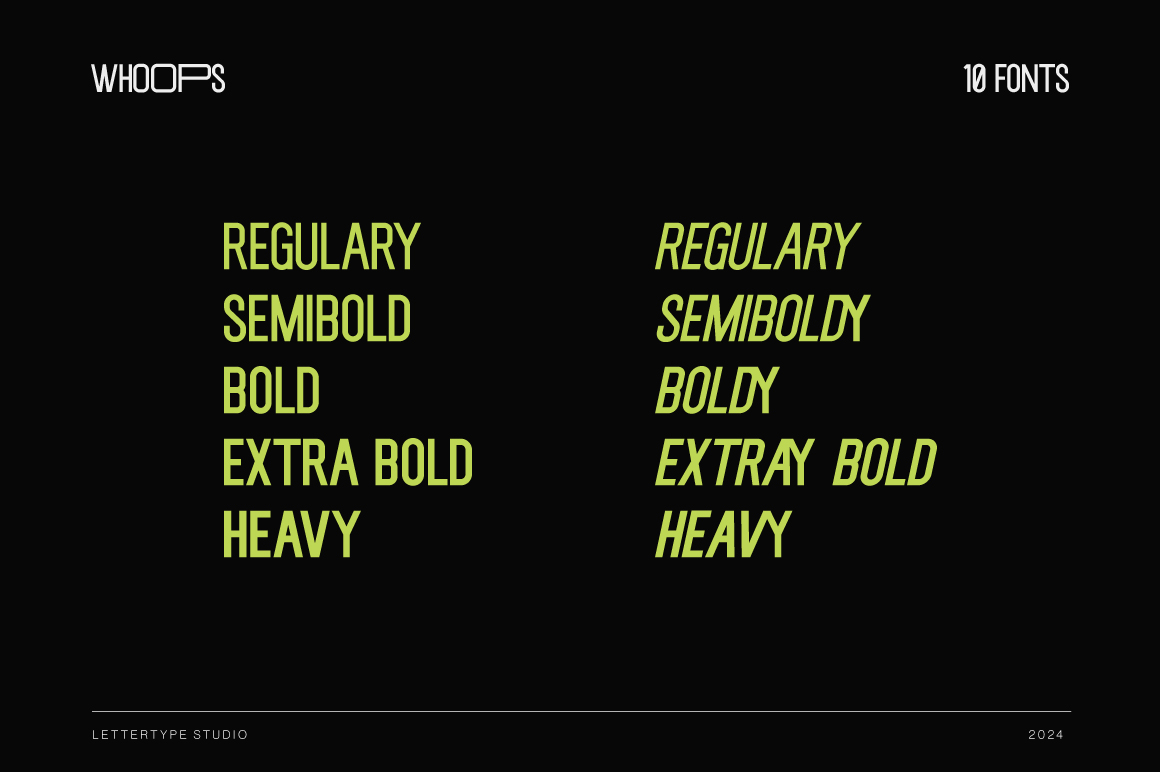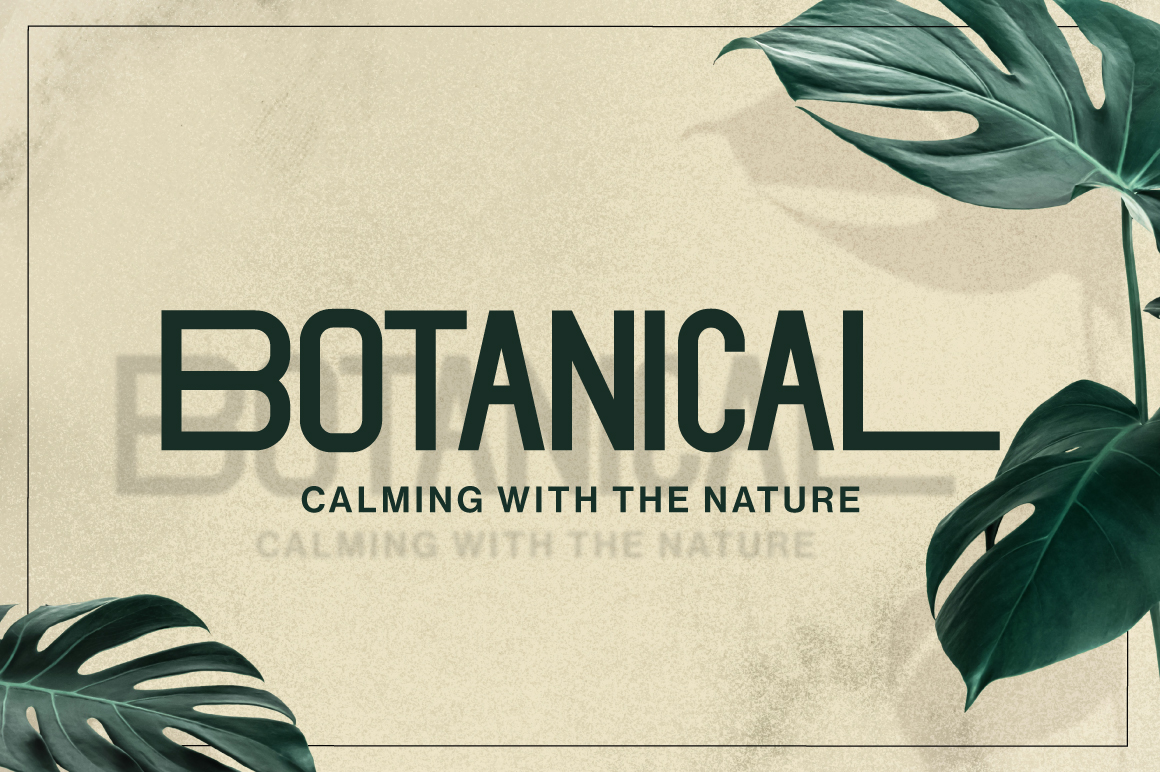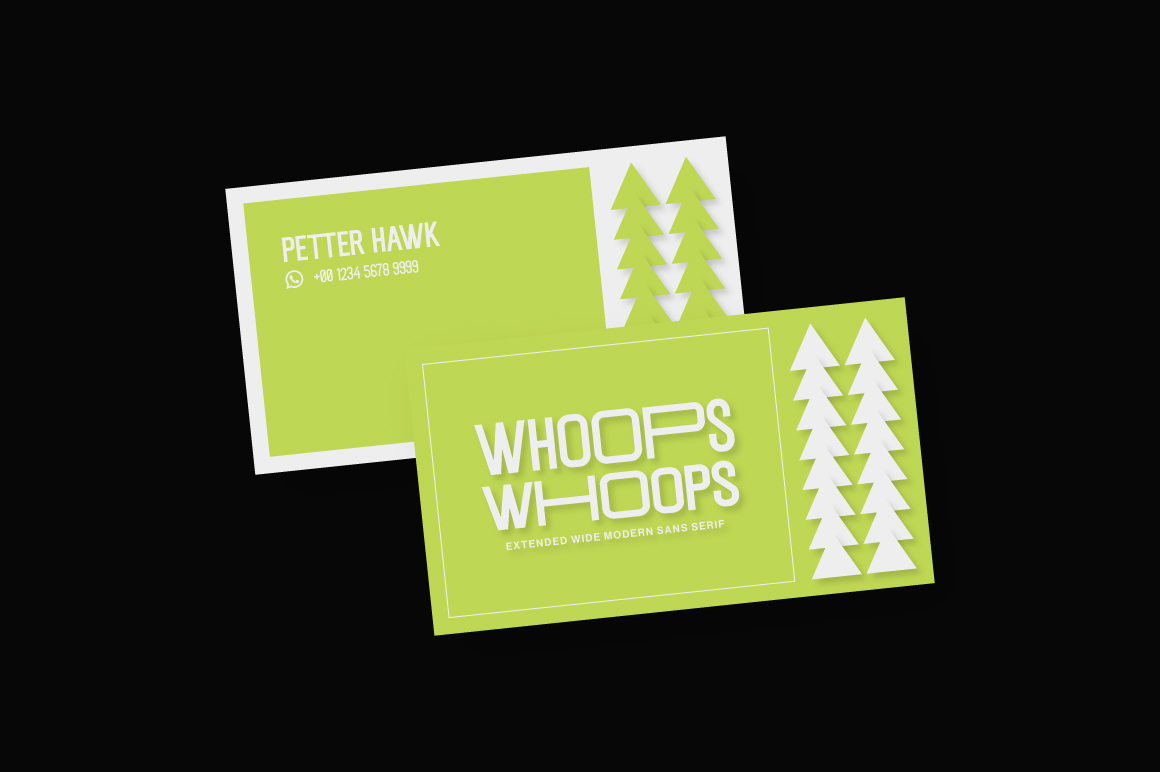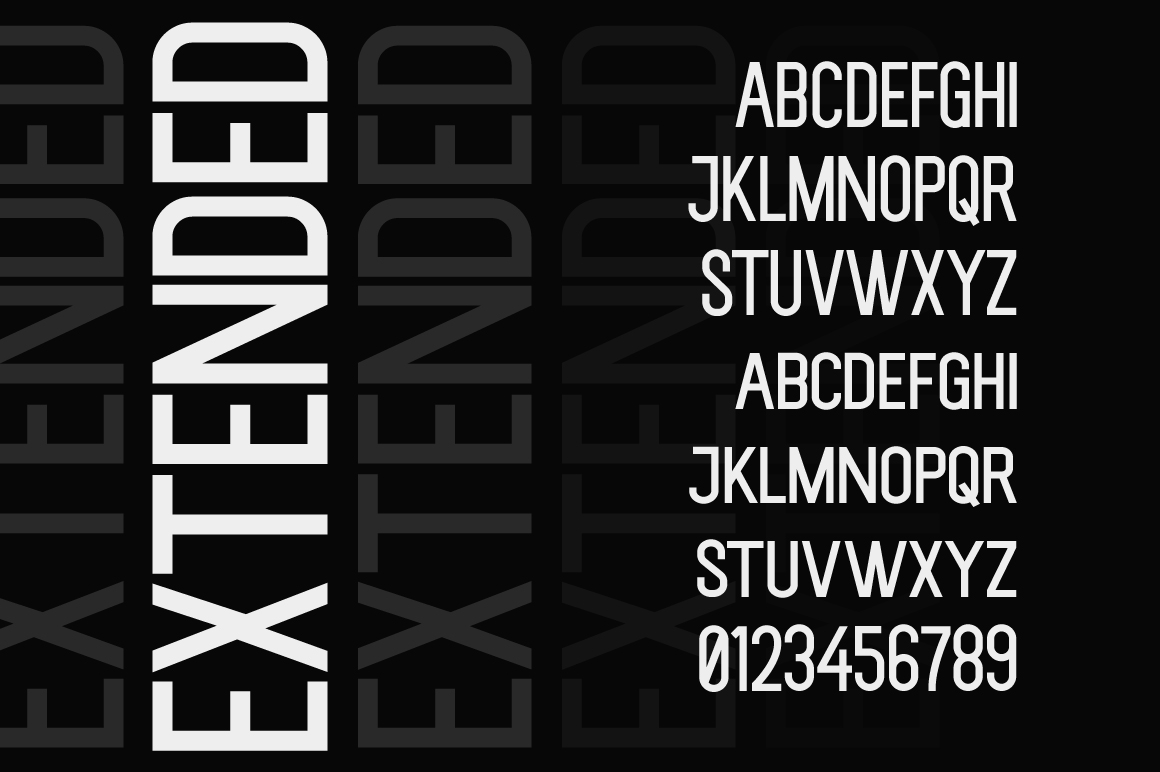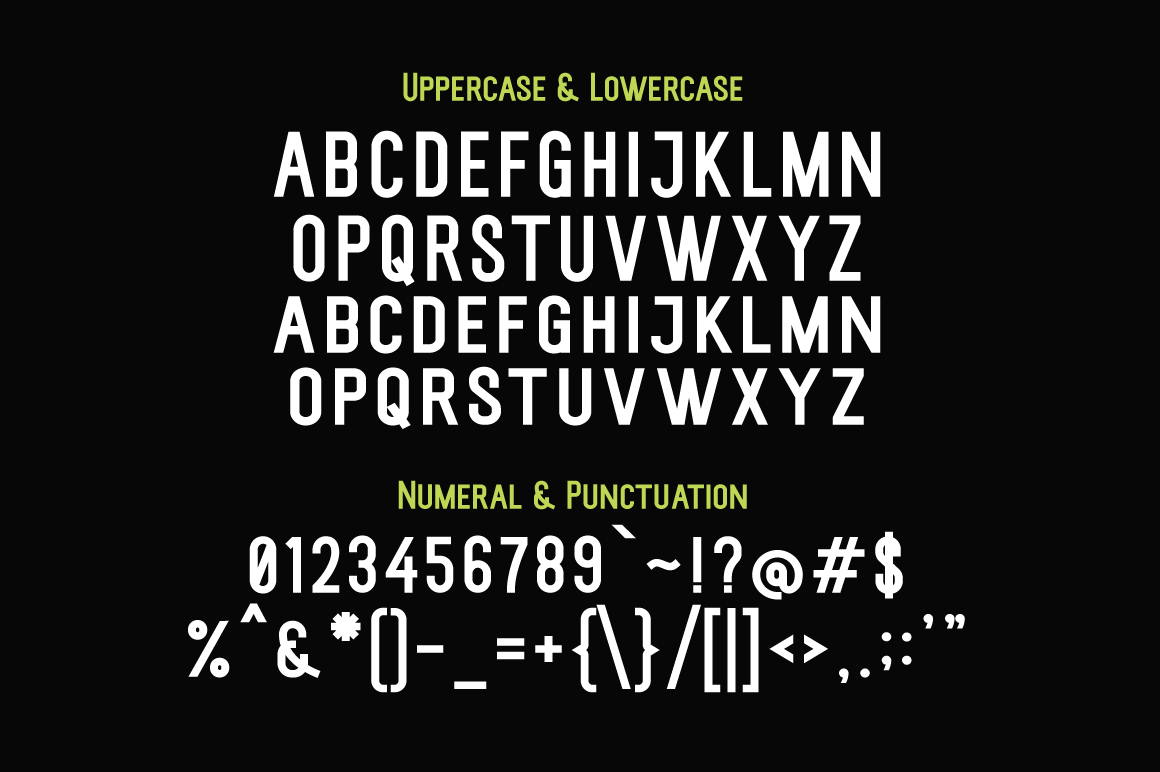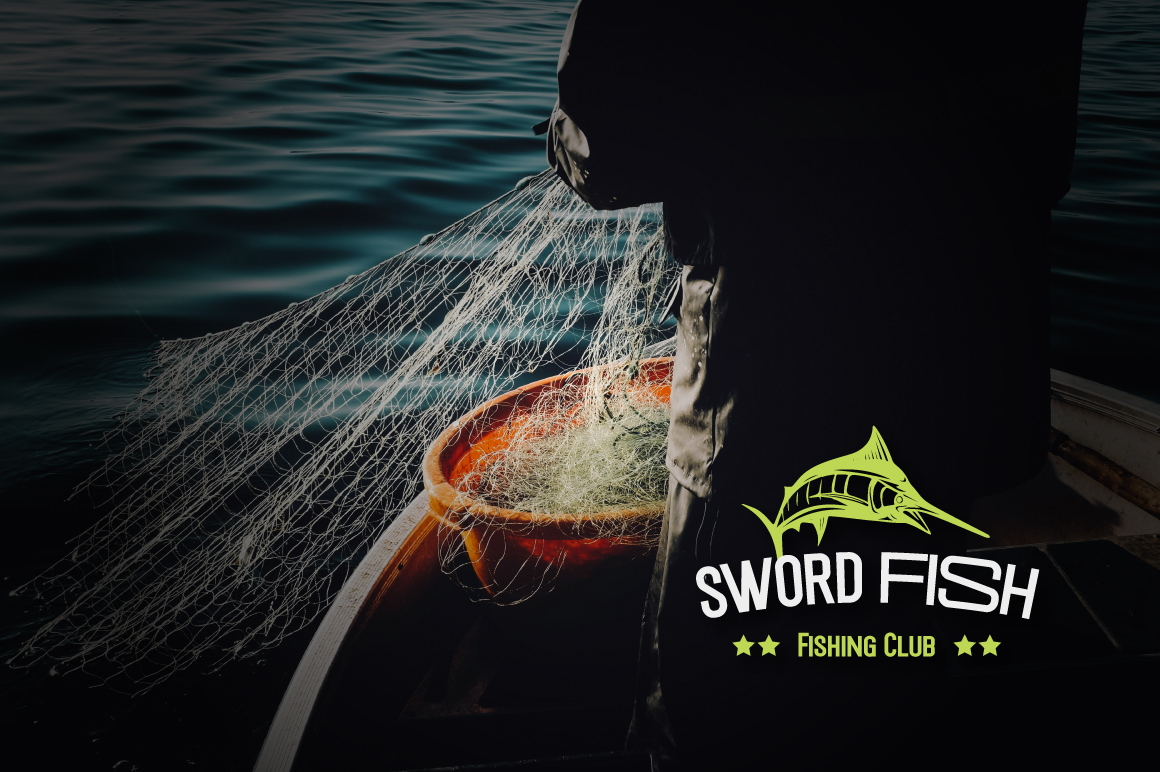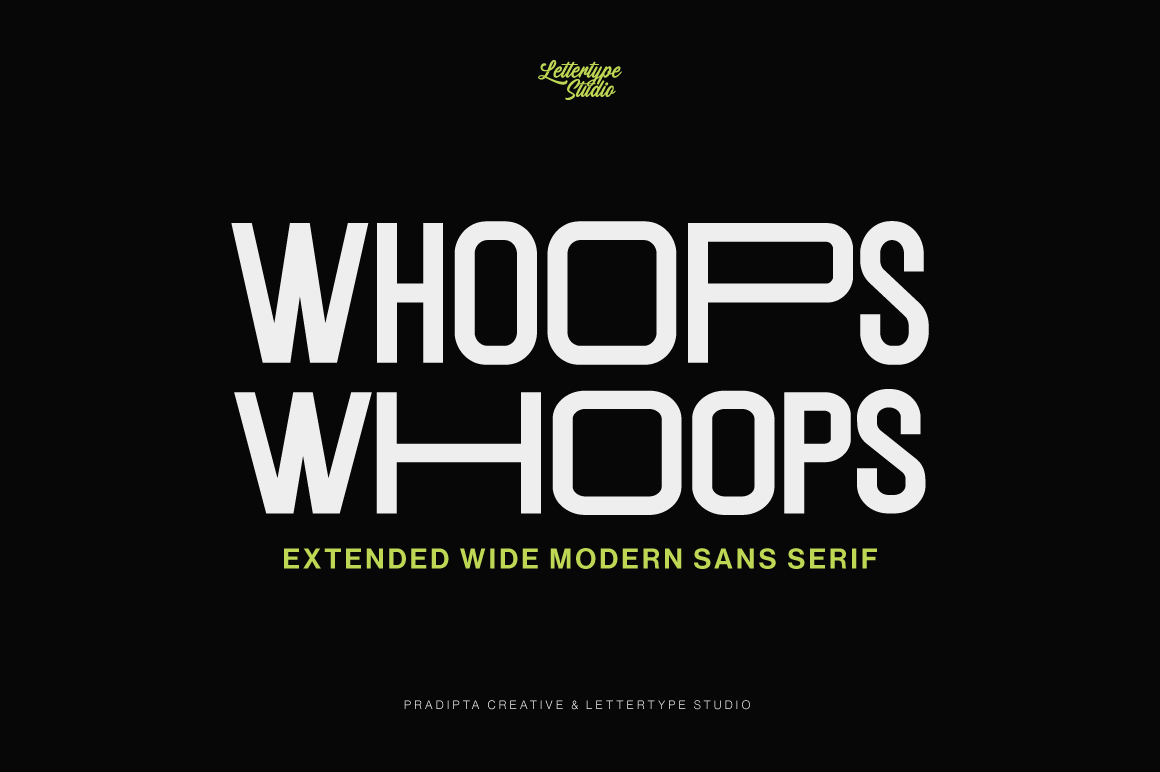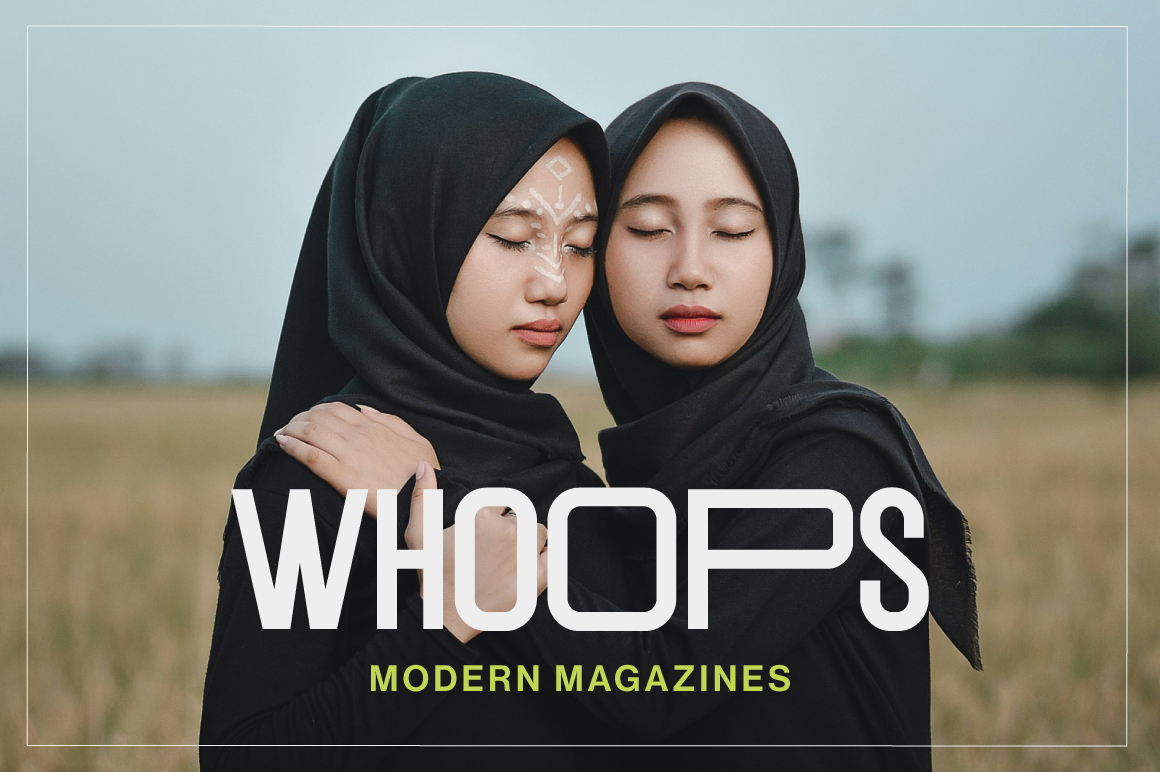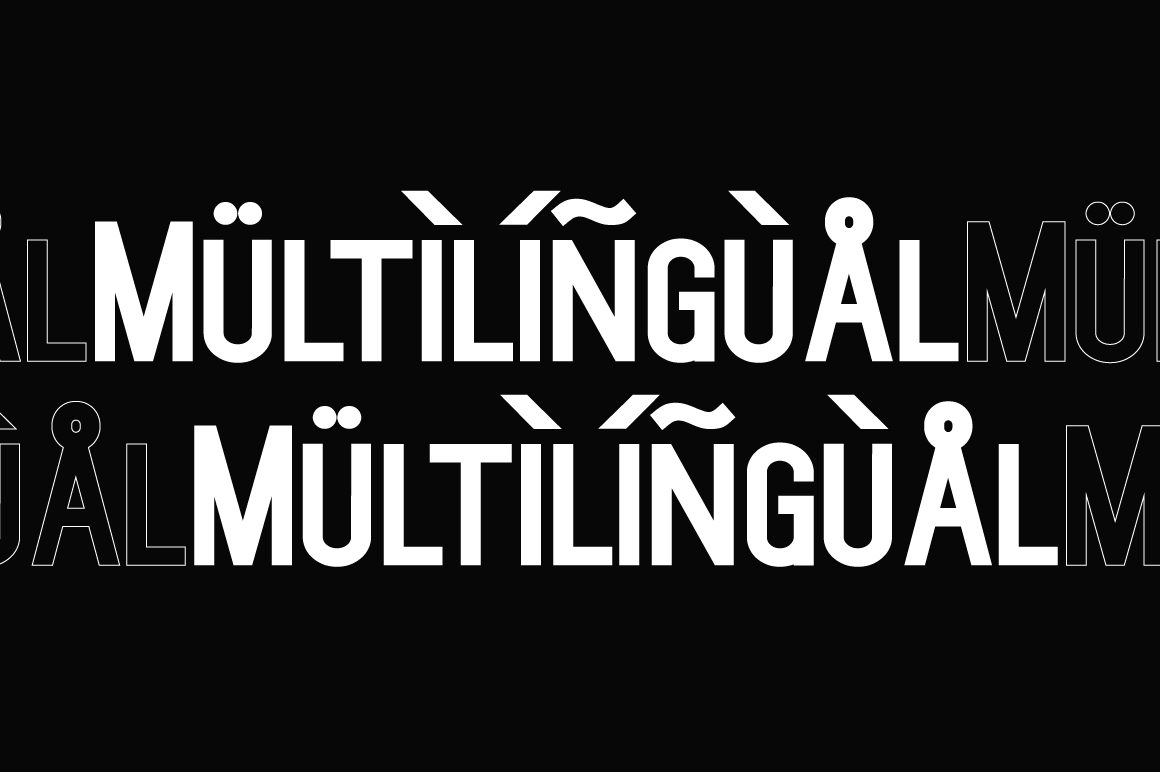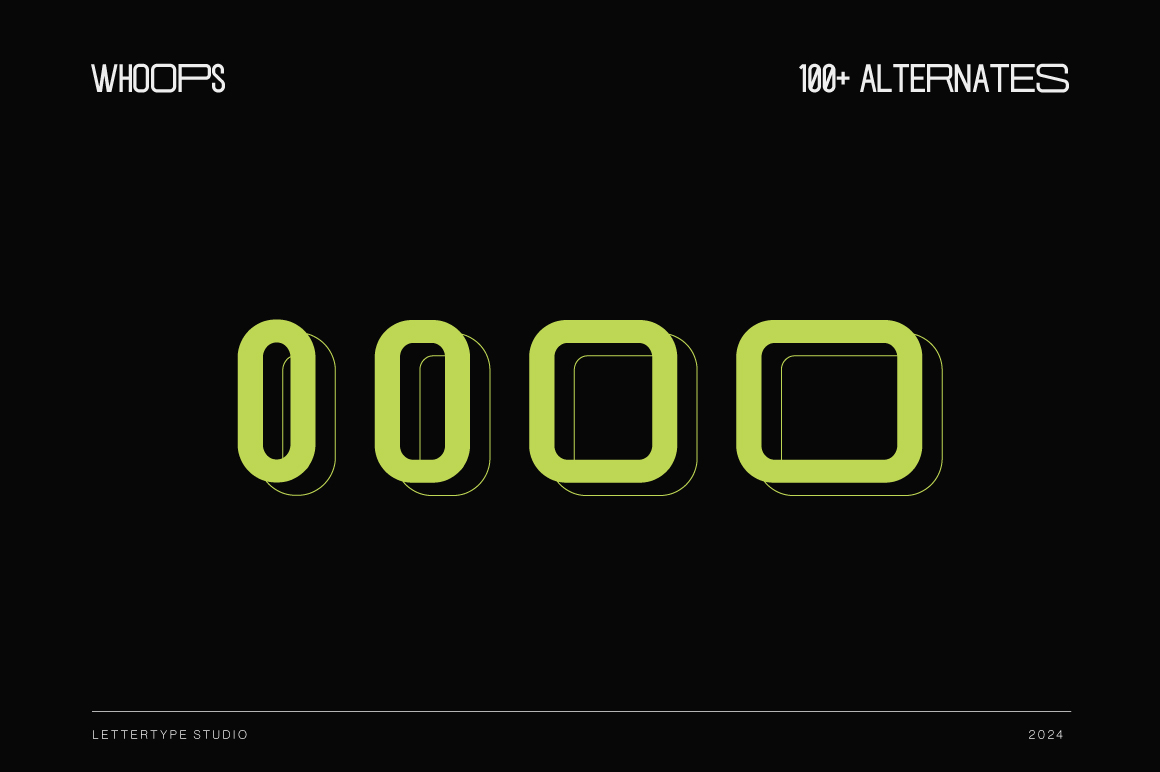
Whoops - Regular
Whoops - Italic
Whoops - SemiBold
Whoops - SemiBold Italic
Whoops - Bold
Whoops - Bold Italic
Whoops - ExtraBold
Whoops - ExtraBold Italic
Whoops - Black
Whoops - Black Italic
Whoops is a bold extended sans serif font family inspired by urban design and modern aesthetics. Featuring strong geometric forms and wide proportions, it brings confidence and clarity to any layout. With over 100 stylistic alternates, Whoops offers endless creative flexibility for custom headlines and logos.
Perfect for branding, posters, product packaging, and digital content, Whoops is built to make bold statements with precision and style. Whether you’re crafting futuristic visuals or minimalist layouts, this typeface delivers the balance of strength and modernity that defines contemporary design.